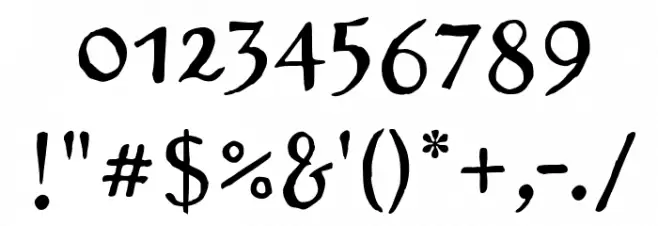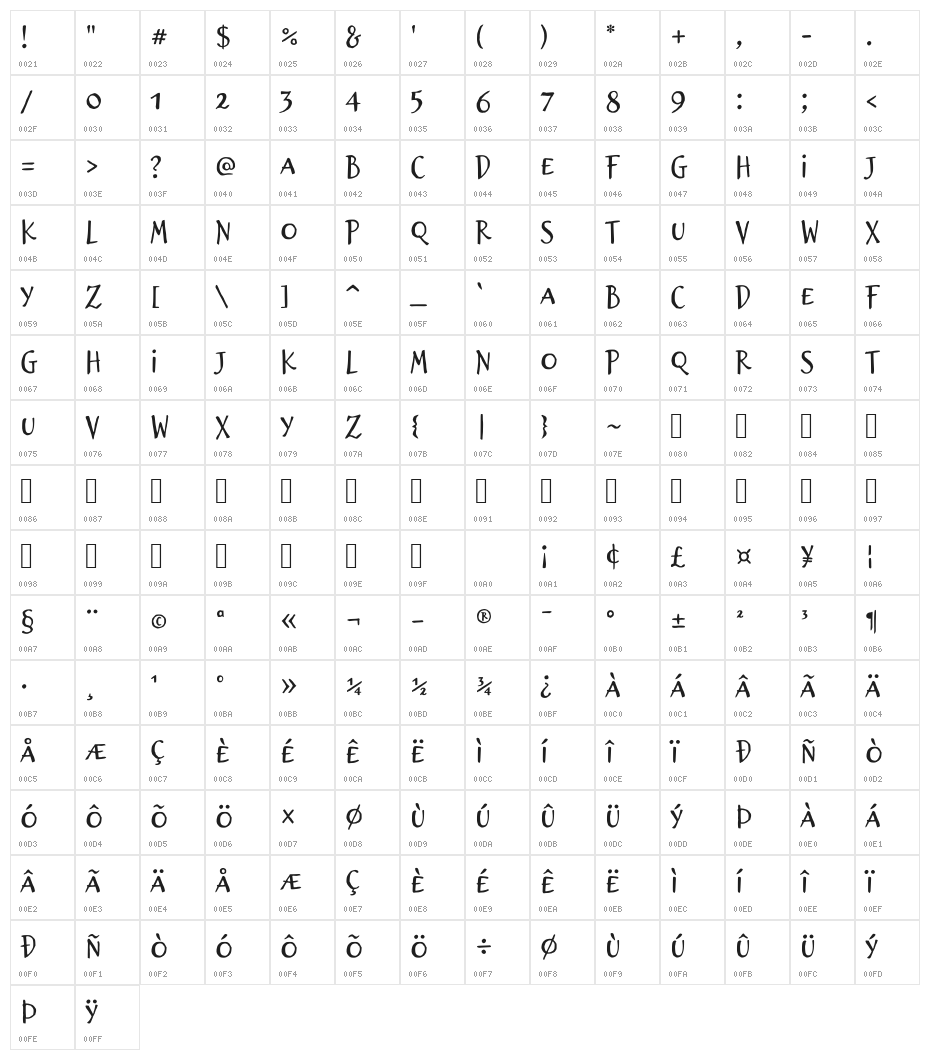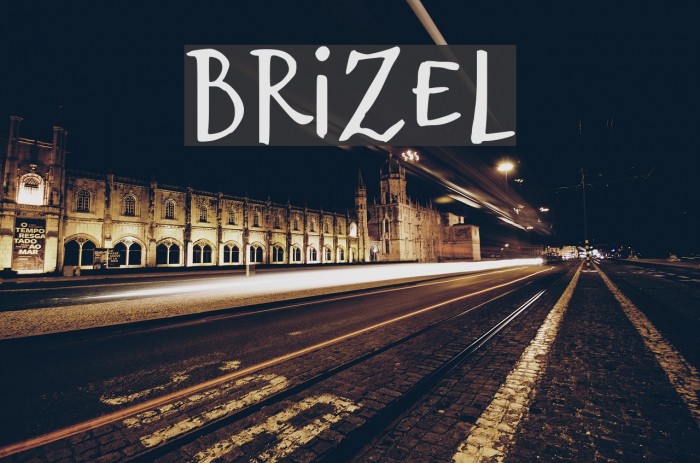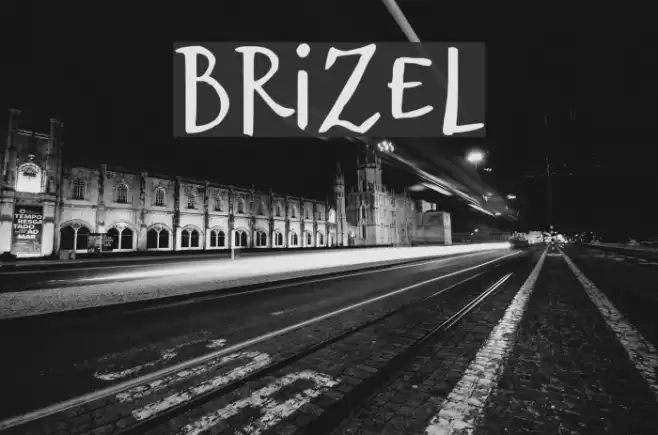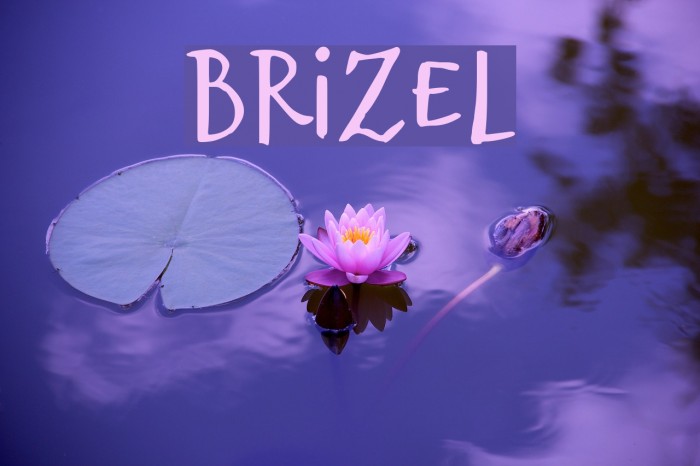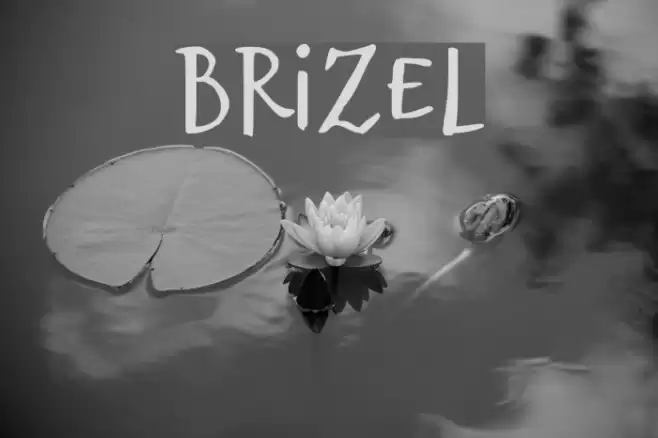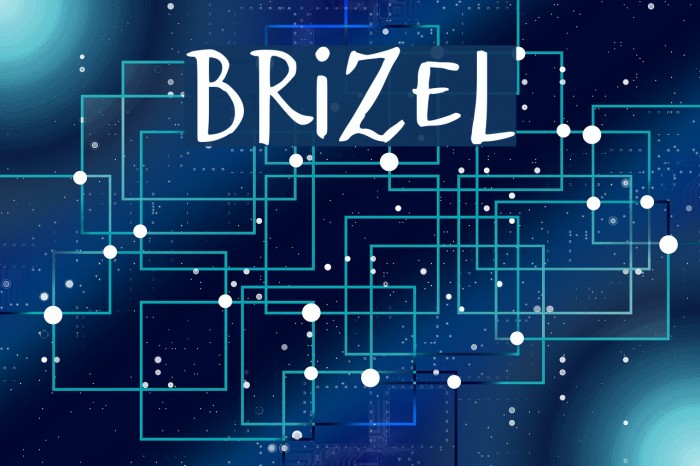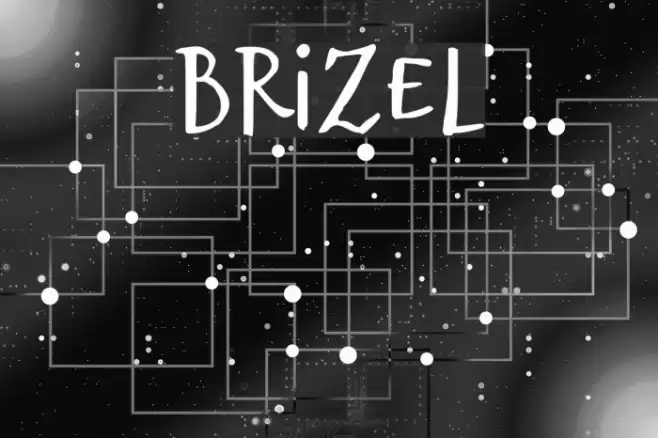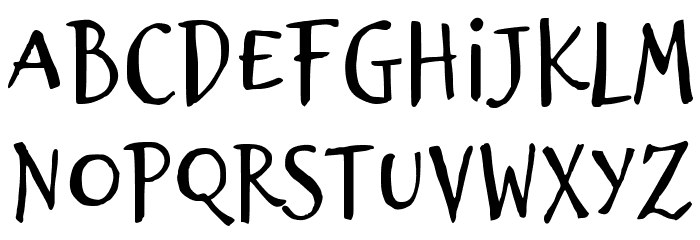
Brizel Font
Brizel Description
This font features a playful and dynamic handwritten style, characterized by its irregular strokes and slightly uneven baseline, giving it a casual and approachable feel. The letters are bold and slightly condensed, with a noticeable variation in stroke thickness that adds a lively rhythm to the text. The uppercase letters are distinct with unique curves and angles, while the lowercase letters maintain a consistent flow, enhancing readability. The numerals are well-balanced and align seamlessly with the overall style. Special characters are creatively designed, complementing the font's whimsical nature. This font is versatile, suitable for projects that require a personal touch or a friendly, informal vibe.
| Proposed Projects | Ideal for greeting cards, invitations, children's books, casual branding, and social media graphics. |